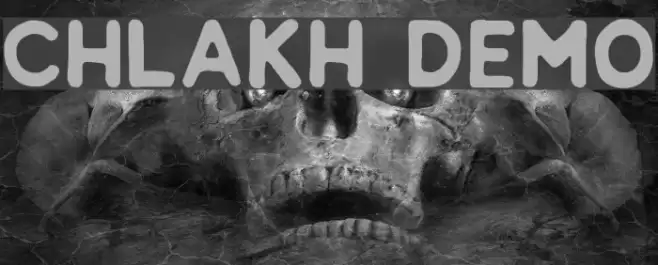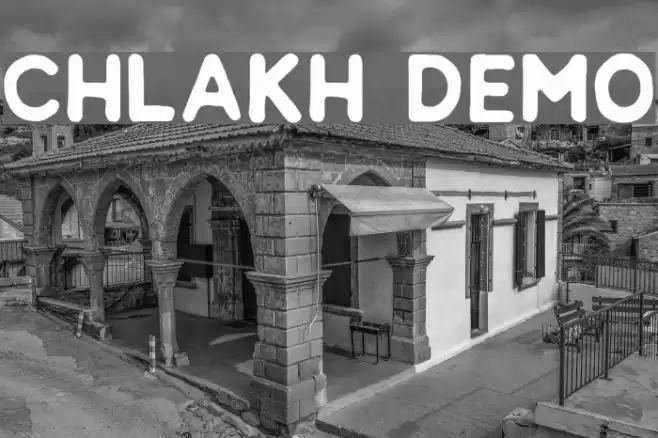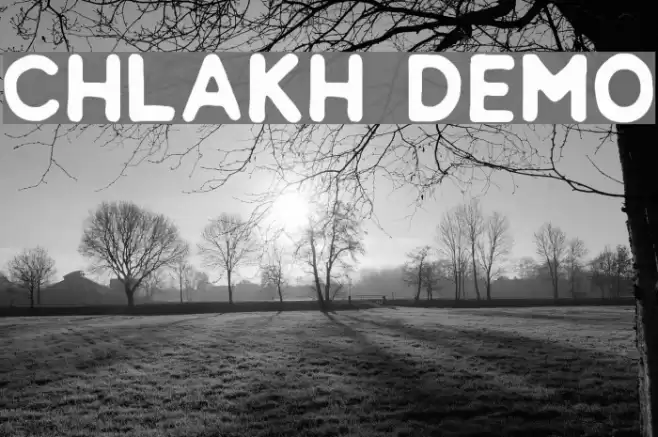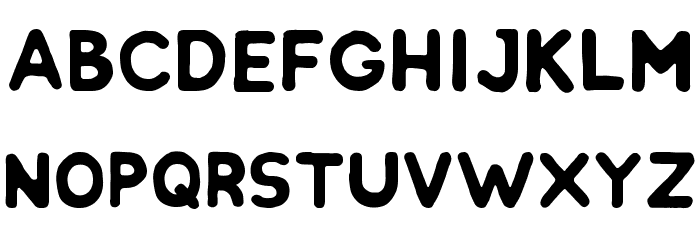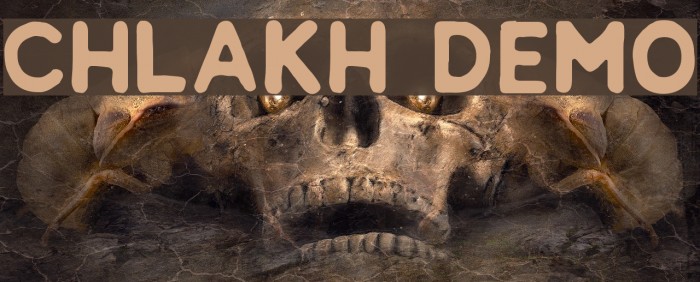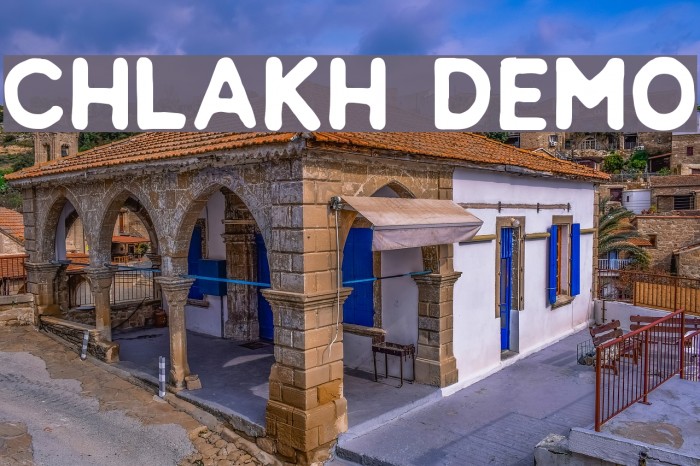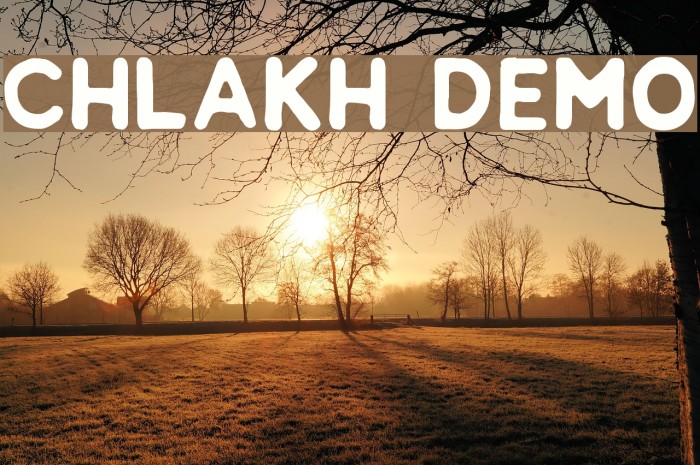
Chlakh Demo
This font features a playful and bold style with rounded edges, giving it a friendly and approachable appearance. The characters are evenly spaced, maintaining a consistent and harmonious look across both uppercase and lowercase letters. The boldness of the strokes adds a sense of strength and visibility, making it suitable for attention-grabbing designs. The font's rounded terminals and smooth curves contribute to its modern and casual aesthetic, making it versatile for various creative projects. Its simplicity and clarity ensure readability while adding a touch of personality to any text.
A playful, bold font with rounded edges and a modern, friendly style.
- Proposed Projects: Ideal for children's books, playful branding, posters, and social media graphics.